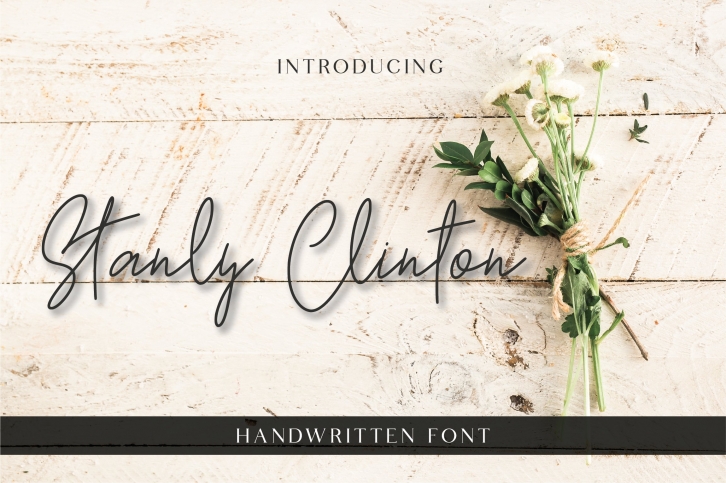
Stanly Clinton is a great font that was designed by Bhubbiberry Studio. Imagine the amount of combinations you can create using this font! The archive is 20.64 MB and it was released on July 12, 2022. Stanly Clinton looks beautiful on wedding invitations, greeting cards, logos, posters, labels, t-shirt designs, logos, business cards and is perfect for use in ink or watercolor works, fashion, magazines, packaging and food menus, children's books and more!